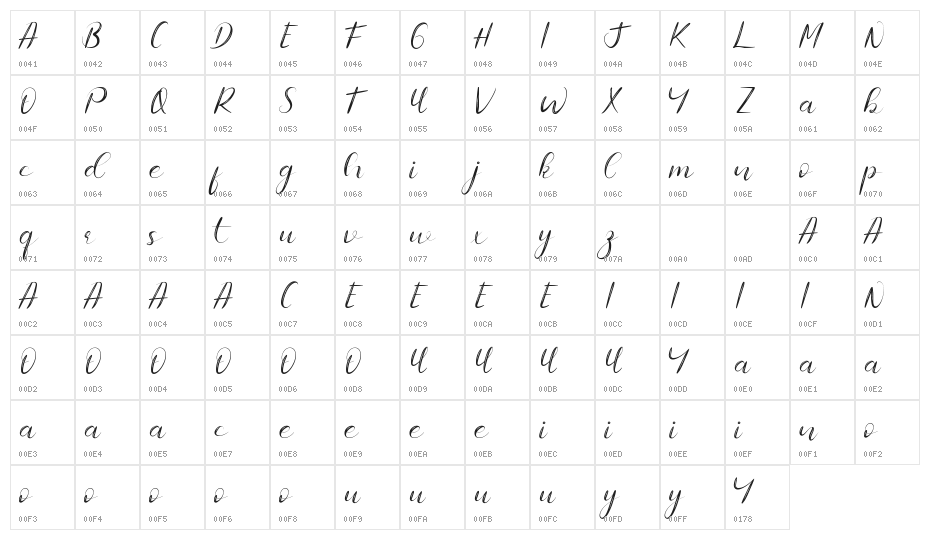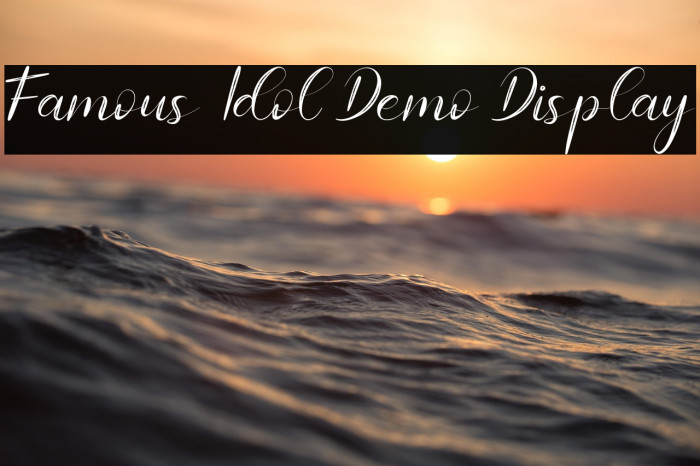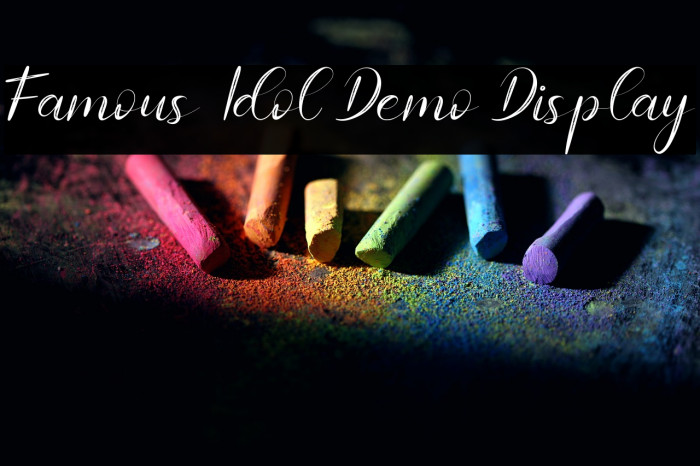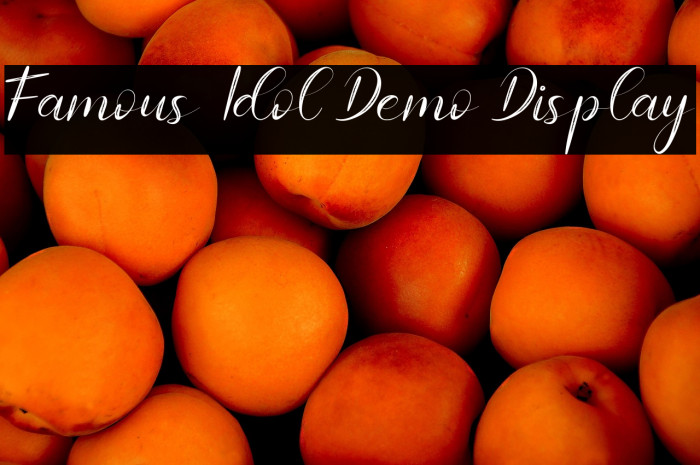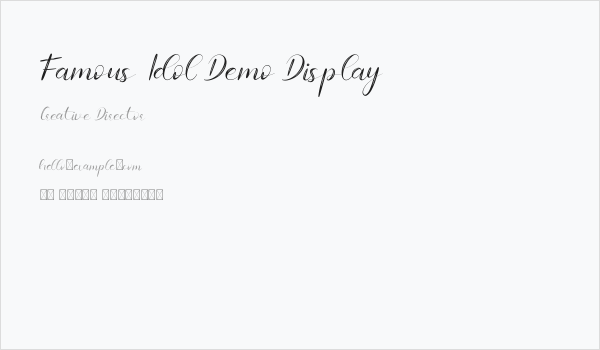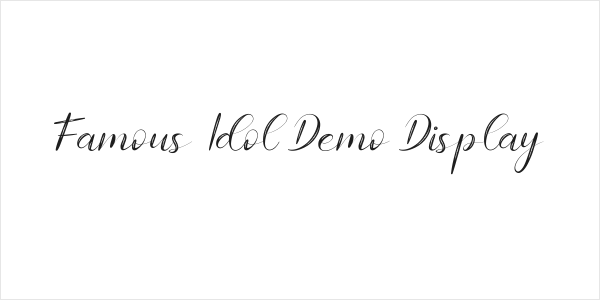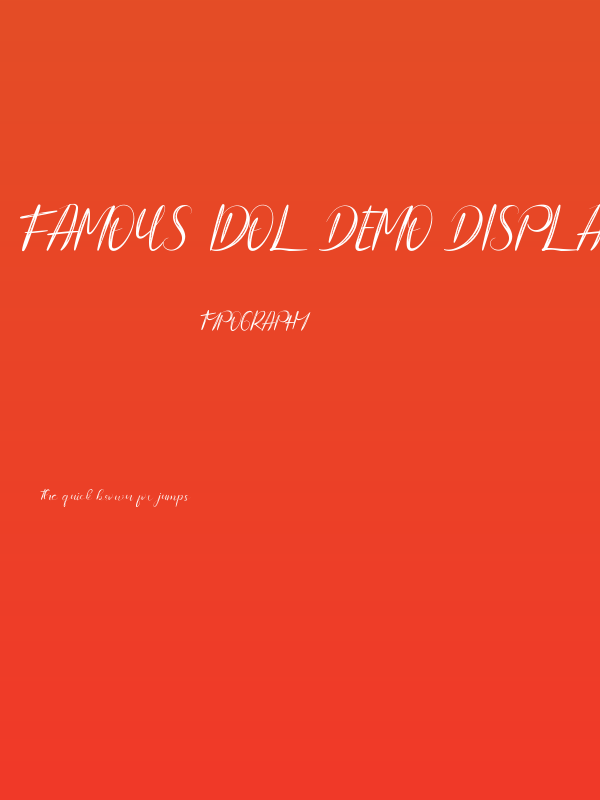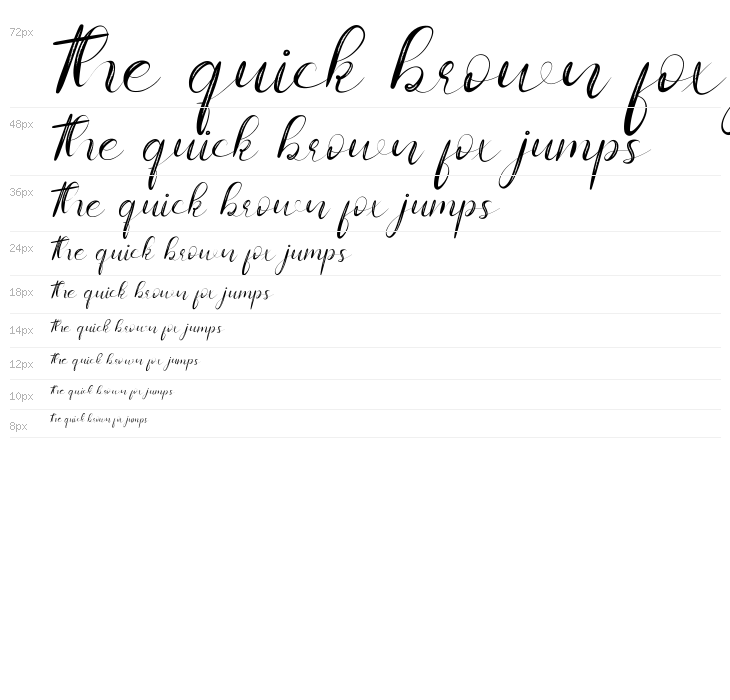
Famous Idol Demo Display Font
Famous Idol Demo Display Description
This font features an elegant and flowing script style, characterized by its smooth, cursive strokes and graceful curves. The uppercase letters are tall and slightly slanted, with a sophisticated flair that adds a touch of class. The lowercase letters maintain a consistent flow, enhancing readability while preserving the decorative nature of the script. The absence of numbers and special characters suggests a focus on artistic expression rather than functional typography. This font is ideal for projects that require a personal and elegant touch, such as invitations, greeting cards, or branding materials.
| Overall Style | Elegant, Decorative |
| Use Case | Invitations, Branding, Decorative text |
| Proposed Projects | Ideal for wedding invitations, greeting cards, branding, and elegant stationery. |